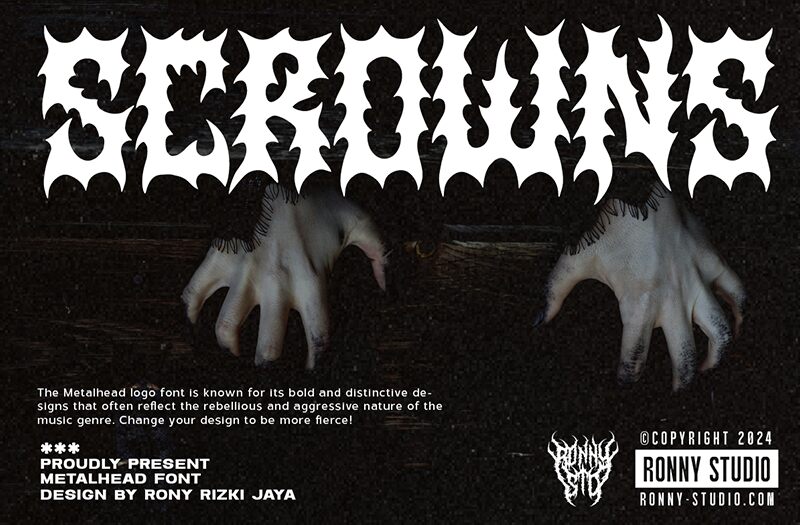
Scrowns font by Ronny Studio balances bold strokes with complex detailing in an unforgettable Gothic lettering design. The free font has a clean and crisp appearance with spikes at the end of each letter stroke. Although it’s a decorative display type, its letterforms are clear and easily recognizable.
The visual appeal of the Gothic font makes it popular for all sorts of design applications including branding, signage, gaming cover artworks, album covers, T-shirt design, tattoos, posters, social media posts and more.